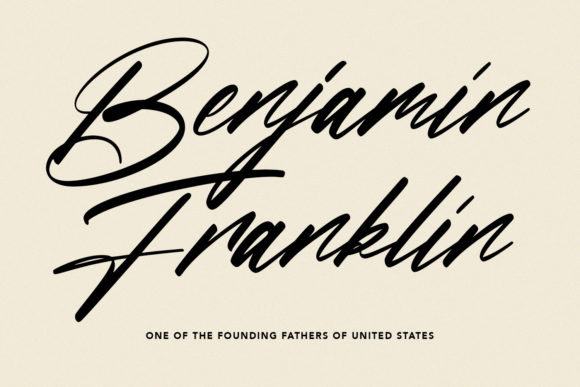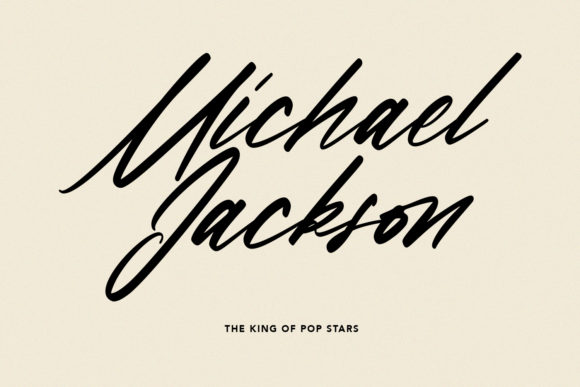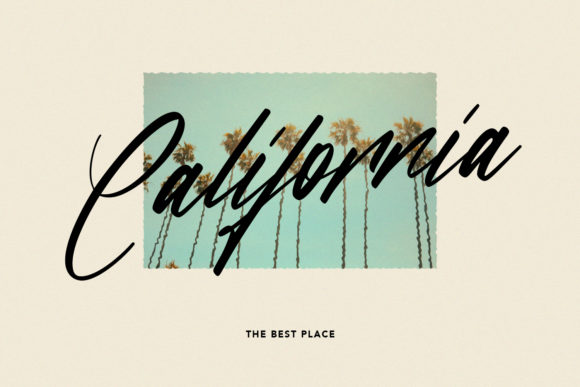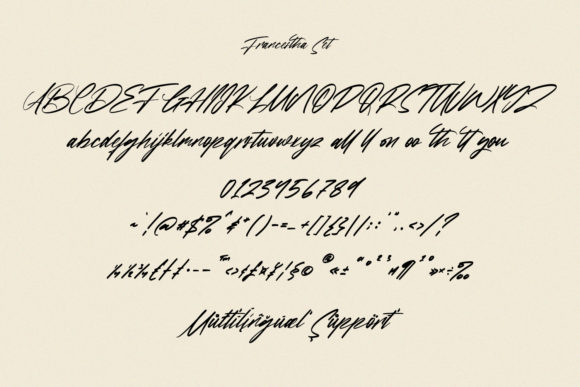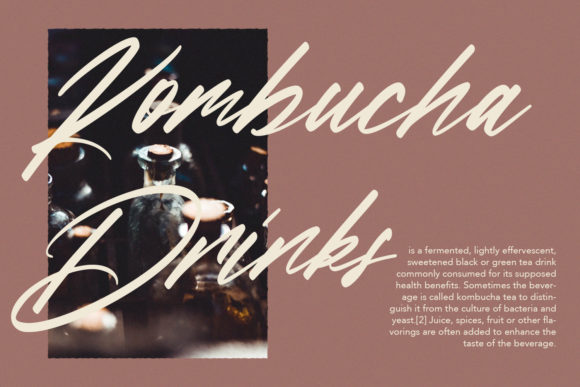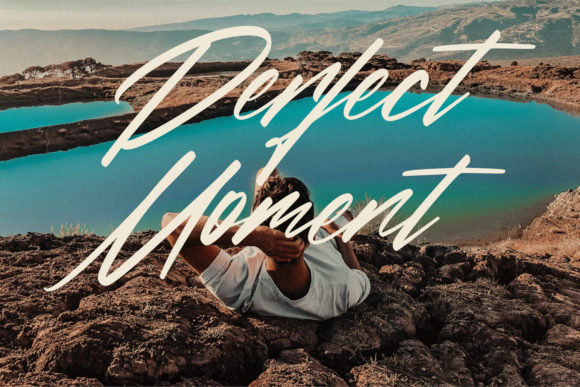
Introducing Francestha Font: Elevate Your Designs with an Authentic Script Font
Are you a designer or crafter looking for a unique and authentic script font to take your creative projects to the next level? Look no further than Francestha Font! This stunning script font is designed to help you create outstanding designs that stand out from the crowd. In this article, we’ll dive into the world of Francestha Font, exploring its features, benefits, and uses, as well as provide tips and inspiration for getting the most out of this incredible font.
What is Francestha Font?
Francestha Font is an authentic script font that boasts a distinctive and elegant style. With its flowing lines, intricate details, and classic charm, this font is perfect for a wide range of design projects, from logos and branding to invitations, packaging, and more. Whether you’re a seasoned designer or a crafty DIY enthusiast, Francestha Font is sure to inspire your creativity and help you achieve professional-looking results.
Key Features of Francestha Font
- Authentic script style: Francestha Font features a genuine script style that’s perfect for creating elegant and sophisticated designs.
- High-quality design: With its intricate details and precise lines, Francestha Font is designed to deliver exceptional results in a variety of applications.
- Versatile: From logos and branding to invitations, packaging, and more, Francestha Font is suitable for a wide range of design projects.
- Easily customizable: With Francestha Font, you can experiment with different colors, sizes, and styles to create a unique look that suits your brand or project.
Benefits of Using Francestha Font
So why choose Francestha Font for your design projects? Here are just a few benefits of using this amazing script font:
- Stand out from the crowd: With Francestha Font, you can create designs that are truly one-of-a-kind and eye-catching.
- Professional-looking results: Whether you’re a designer or a DIY enthusiast, Francestha Font can help you achieve professional-looking results that rival those of seasoned professionals.
- Inspire your creativity: With its elegant style and versatile design, Francestha Font is sure to inspire your creativity and help you explore new ideas and concepts.
- Easily pair with other fonts: Francestha Font pairs beautifully with a range of other fonts, making it easy to create stunning font combinations that elevate your designs.
Using Francestha Font: Tips and Inspiration
Now that you’ve discovered the amazing Francestha Font, here are some tips and inspiration to help you get started:
- Experiment with different colors: Try pairing Francestha Font with different colors to create a unique look that suits your brand or project.
- Play with font sizes: Experiment with different font sizes to create visual interest and hierarchy in your designs.
- Use it for logos and branding: Francestha Font is perfect for creating custom logos and branding materials that stand out from the crowd.
- Try it for invitations and events: With its elegant style, Francestha Font is ideal for creating beautiful invitations, wedding stationery, and other event materials.
In conclusion, Francestha Font is an authentic script font that’s sure to elevate your designs and inspire your creativity. With its elegant style, versatile design, and high-quality craftsmanship, this font is perfect for designers, crafters, and DIY enthusiasts alike. Whether you’re looking to create stunning logos, beautiful invitations, or eye-catching packaging, Francestha Font is the perfect choice. So why wait? Get creative with Francestha Font today and discover a world of limitless design possibilities!